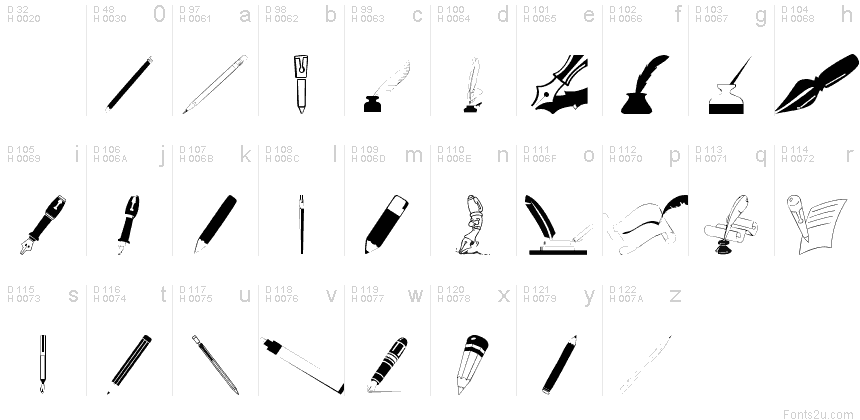
Pens'n'Pencils by FontFreak is a free writing-tool dingbat font built from lively inked illustrations of pens, pencils, nibs, and hands at work. The drawings combine broad silhouettes with fine interior lines, and their slightly uneven contours give the collection the look of vintage instructional cartoons.
Editorial design is its strongest setting, especially for articles about handwriting, stationery, or creative practice. It also suits school posters and notebook packaging. Because the symbols behave like small spot illustrations rather than conventional letters, they can mark sections, form playful borders, or supply visual cues in craft publishing and children's activity materials.